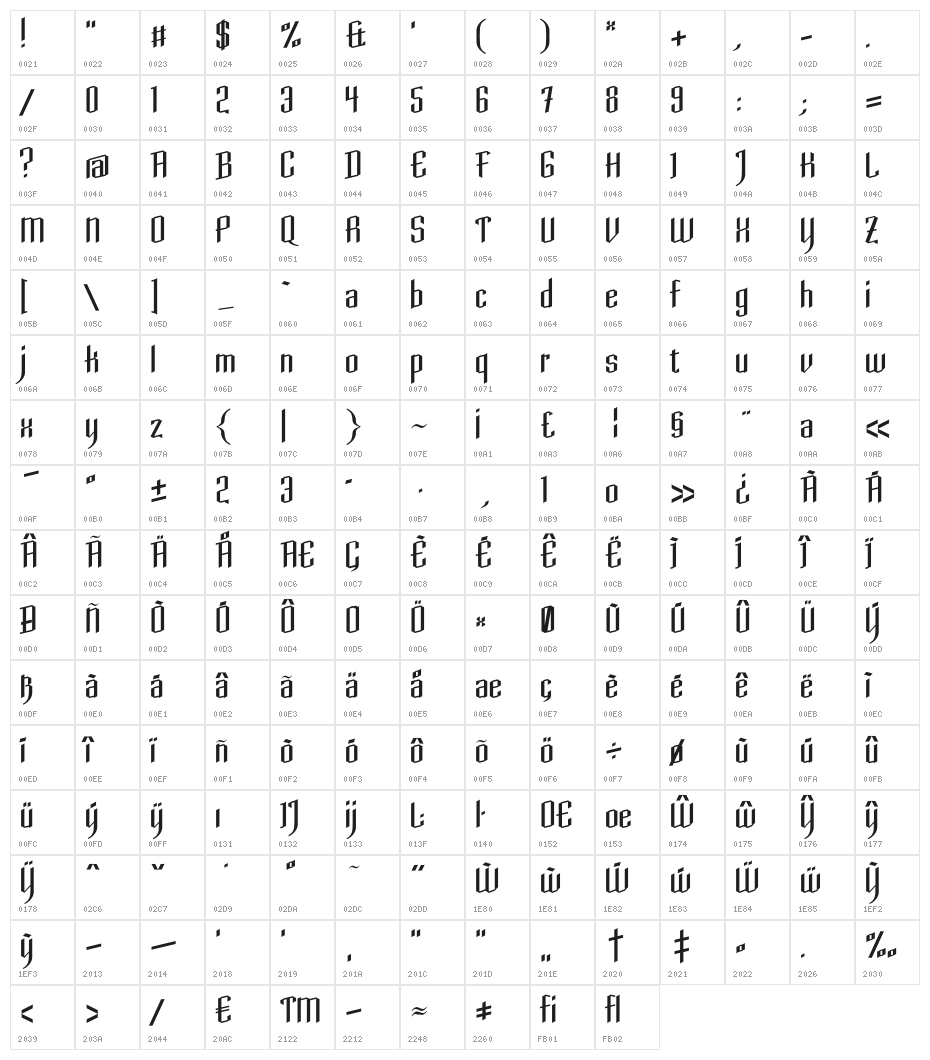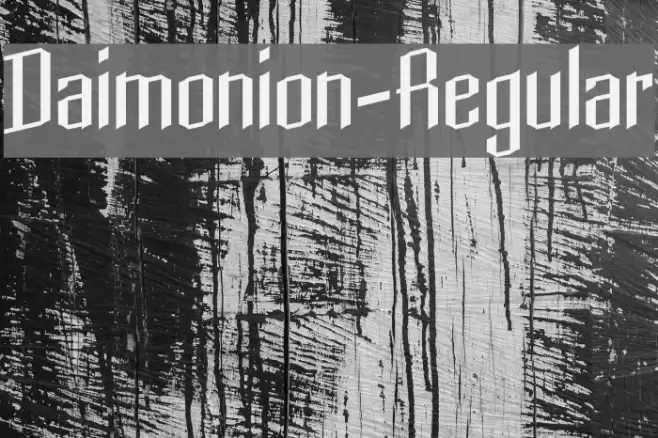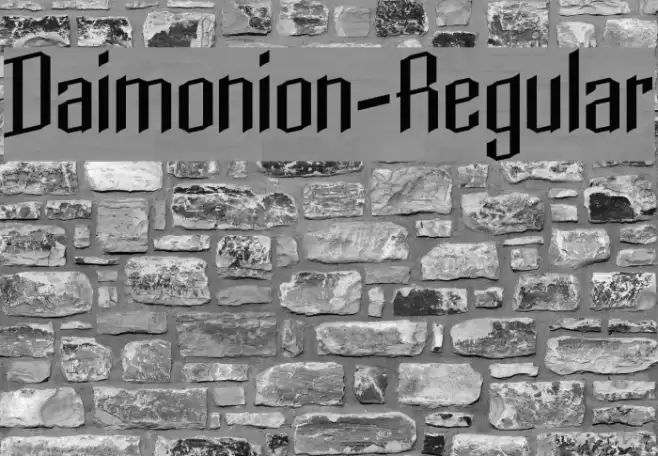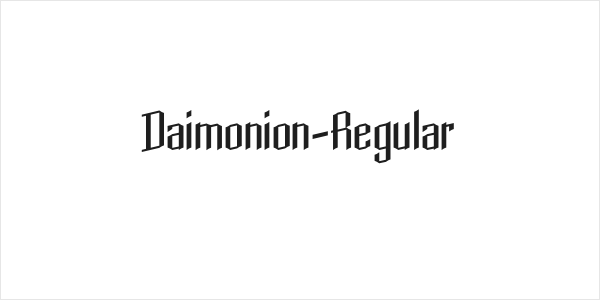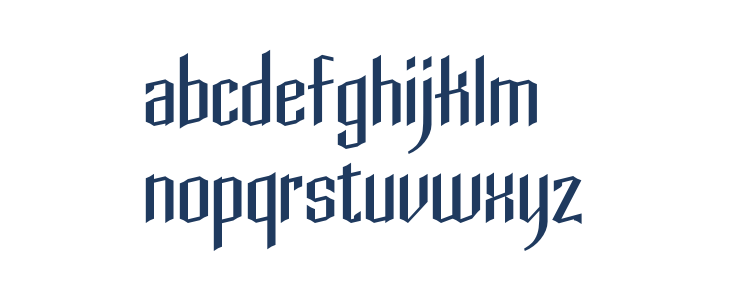
Daimonion-Regular Font
Daimonion-Regular Description
This font features a bold and angular design, characterized by sharp edges and a distinct geometric style. The uppercase letters exhibit a strong presence with their tall and narrow forms, while the lowercase letters maintain a consistent angularity, creating a cohesive look. The numerals are equally bold, matching the overall aesthetic of the alphabet. Special characters are designed with the same attention to angular detail, ensuring uniformity across all glyphs. This font's unique style makes it stand out, offering a modern twist on traditional blackletter influences.
| Proposed Projects | Ideal for branding, poster design, album covers, and any project requiring a bold, distinctive typeface. |